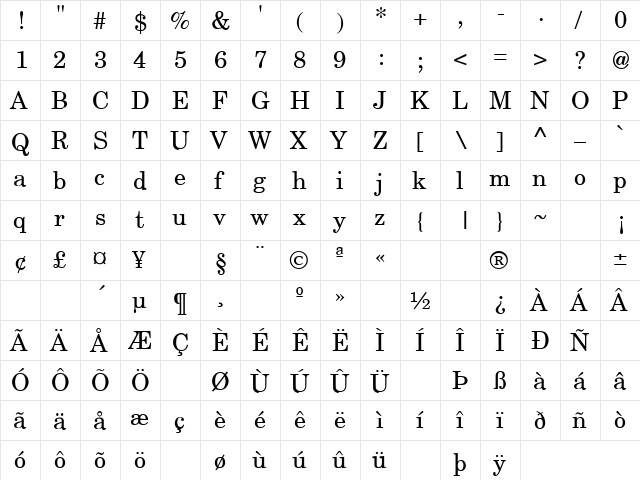
Adam's Apple 7 Regular
Design Context for Adam's Apple 7 Typeface
Adam's Apple 7 is a composed and adaptable typeface that performs quietly and consistently across a wide range of design contexts.